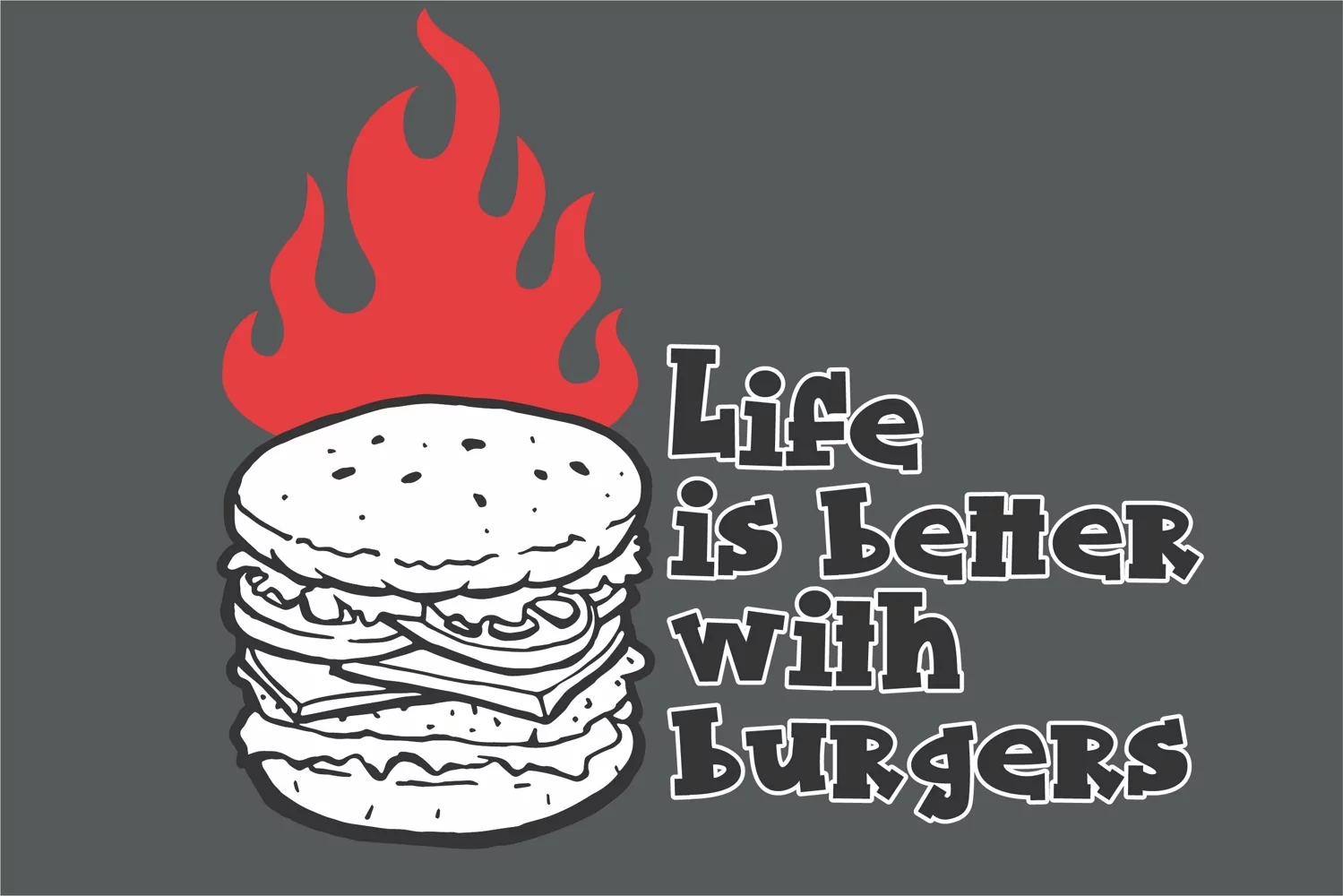
Kabob is a bulky, fun and friendly serif font. It is great for cartoon titles, posters and all sorts of creations that require a fun touch. The only limit is your imagination! Includes regular and outline.